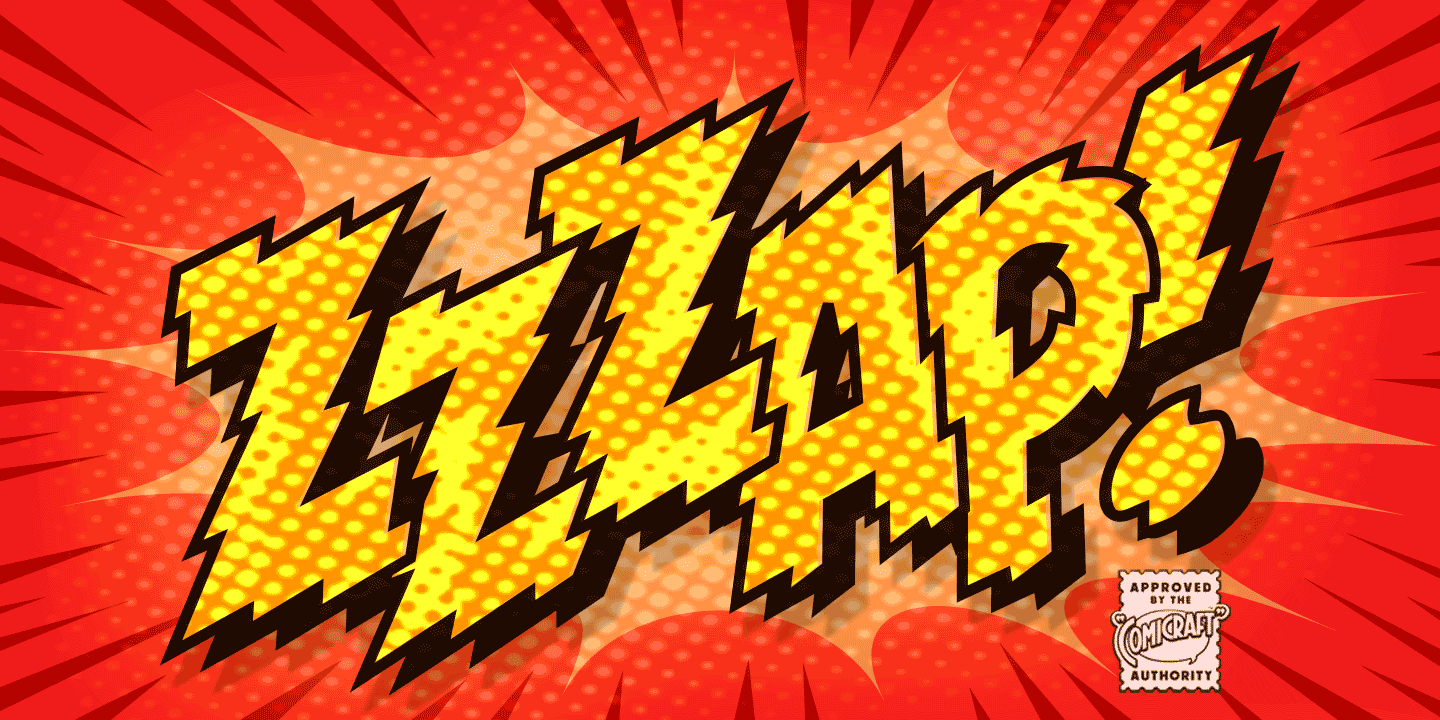
Zzzap Font is perfect for comic book lettering, superhero branding, action-packed gaming graphics, electric energy drink packaging, dynamic sound effect designs, explosive entertainment posters, high-voltage tech logos, and electrifying designs that require maximum comic book energy and lightning-fast impact.
This font is exciting because it delivers pure comic book electricity through its dynamic letterforms that seem to crackle with superhero power and explosive energy. The electrifying character design embodies the instant impact and visual excitement of classic comic book sound effects, making it perfect for brands seeking to create memorable, high-energy experiences that grab attention instantly.
Zzzap Font belongs to the comic book display font family, featuring electric styling and superhero elements that enhance its effectiveness for entertainment and action-focused design applications.
Whether you're creating superhero entertainment branding or high-energy gaming graphics, Zzzap Font Free Download delivers maximum electric impact and comic book authenticity. This typeface perfectly captures the essence of comic book excitement while maintaining excellent functionality for contemporary applications. The font's explosive presence works spectacularly in entertainment promotions, gaming communications, and action-packed marketing materials, providing strong readability while maintaining its electric character that transforms any design with superhero energy and creates unforgettable lightning-fast experiences across all media platforms and comic entertainment communications.